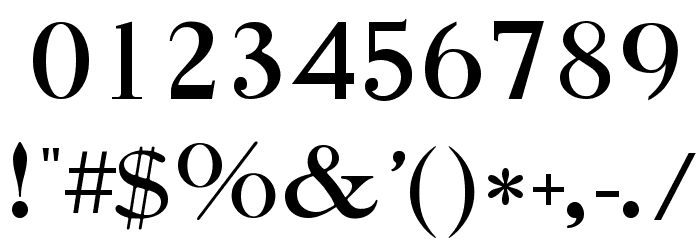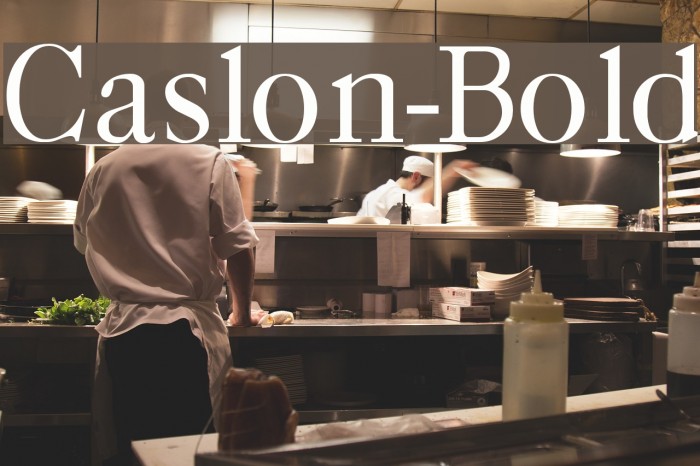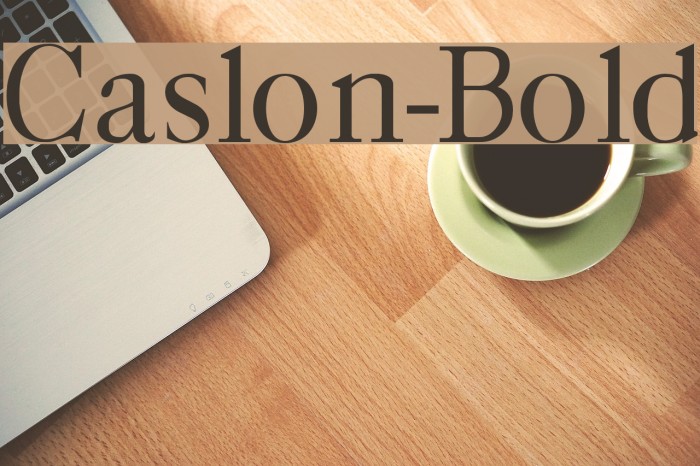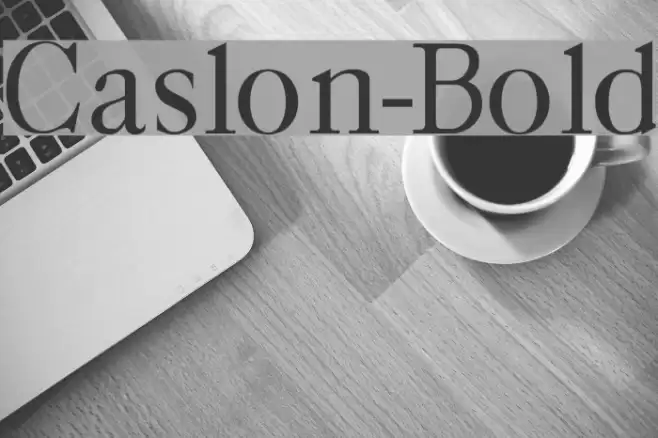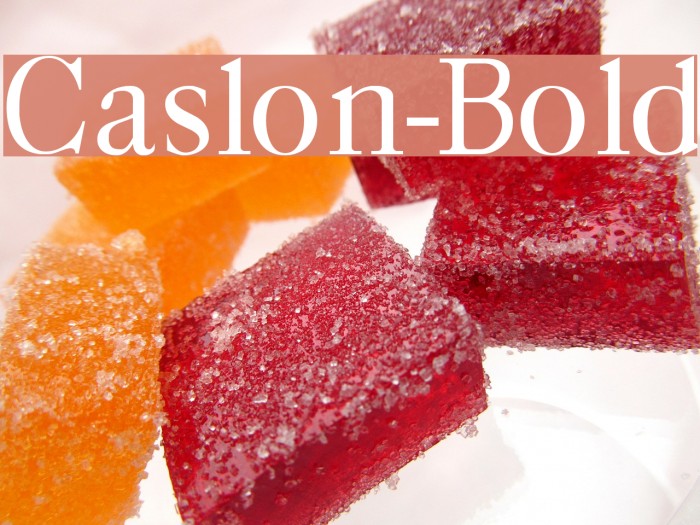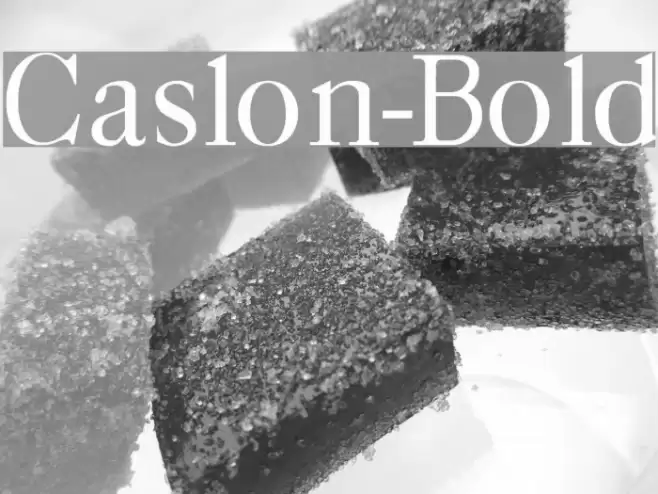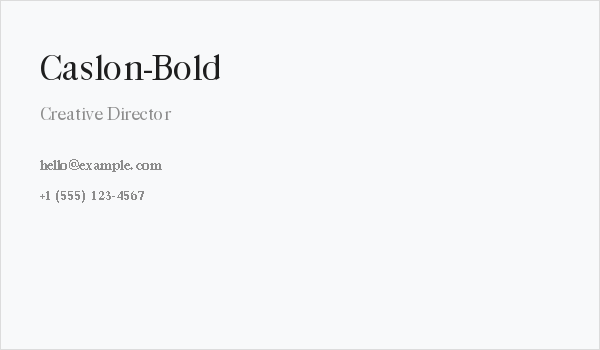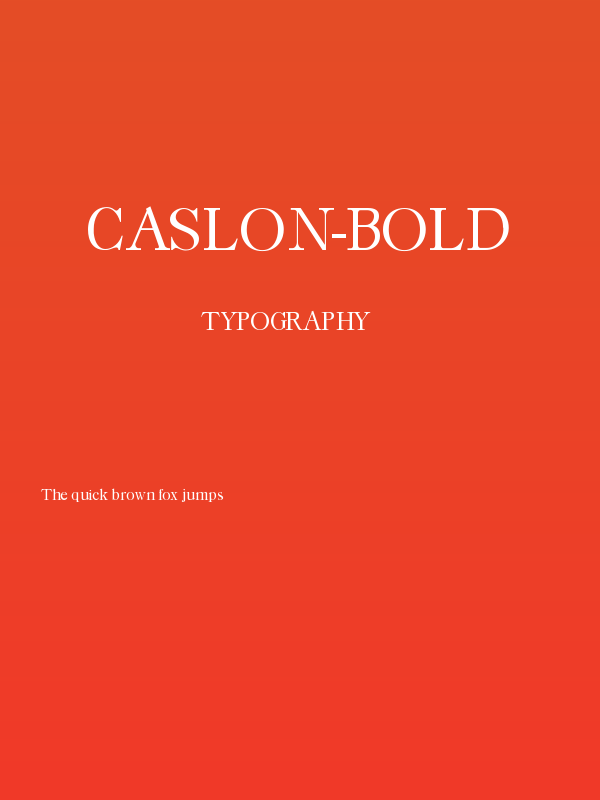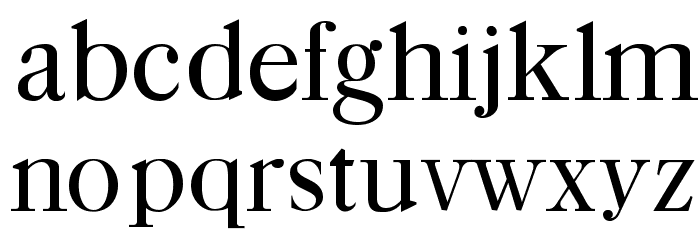
Caslon-Bold Font
Caslon-Bold Description
This font exhibits a classic serif style with a bold weight, characterized by its strong and authoritative presence. The serifs are pronounced, adding a traditional and formal touch to the letters. The uppercase letters are well-proportioned, with a slight contrast in stroke thickness that enhances readability. The lowercase letters maintain a consistent style, with rounded curves and sharp serifs that provide a harmonious balance. The numerals are clear and distinct, making them suitable for both text and display purposes. Special characters are elegantly designed, maintaining the overall classic aesthetic.
Overall StyleClassic
Use CaseHeadlines, Body text, Logos
Proposed ProjectsIdeal for projects requiring a traditional and authoritative feel, such as book covers, formal invitations, and editorial layouts.